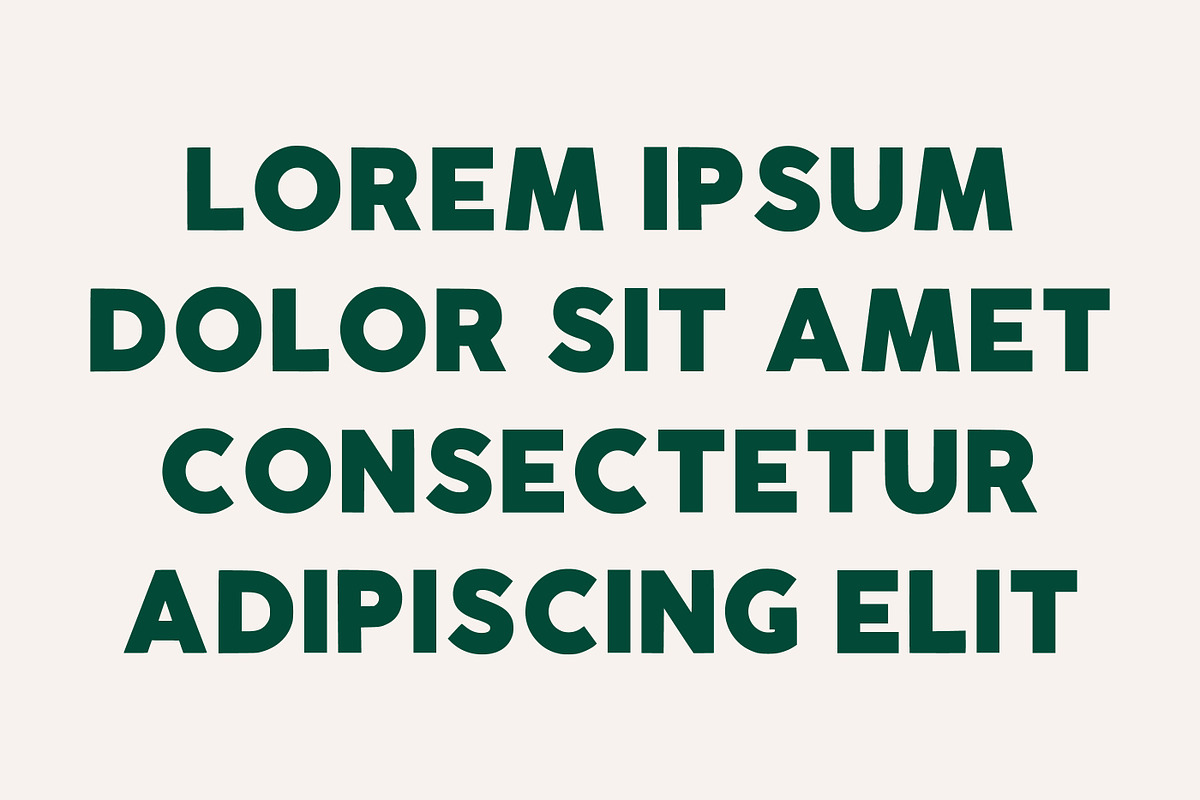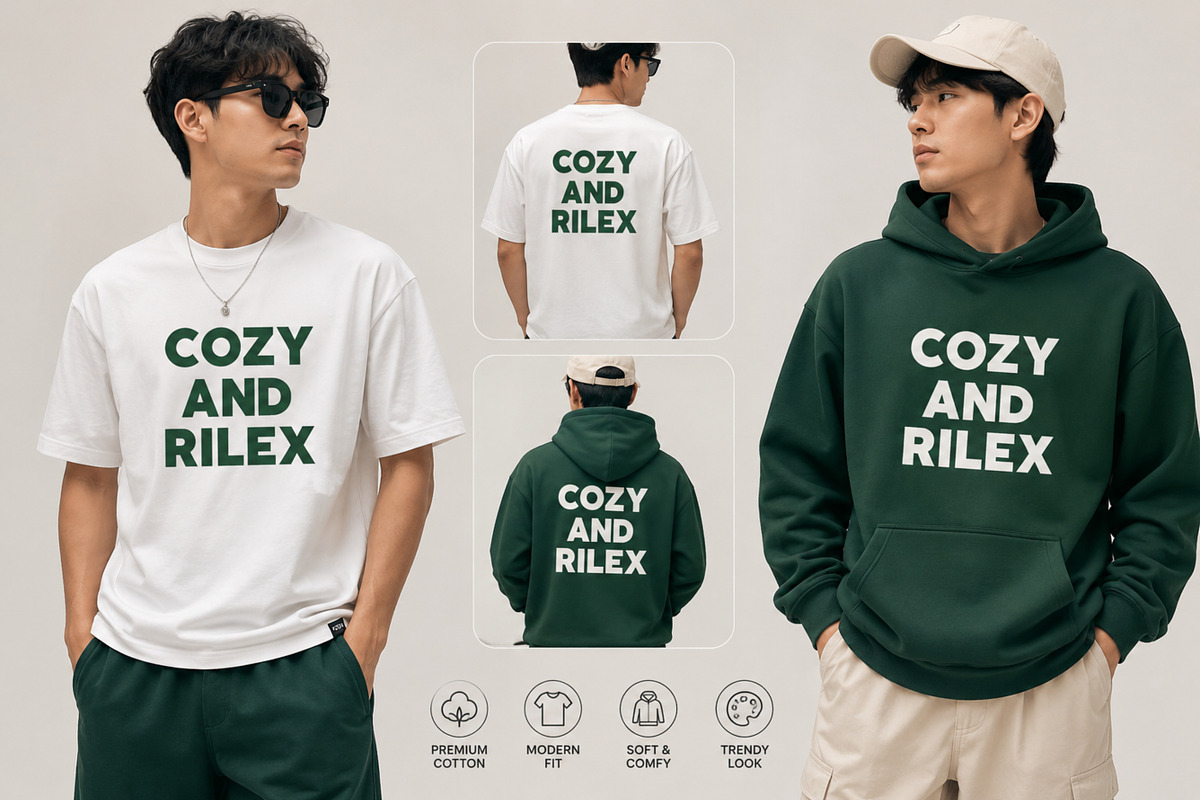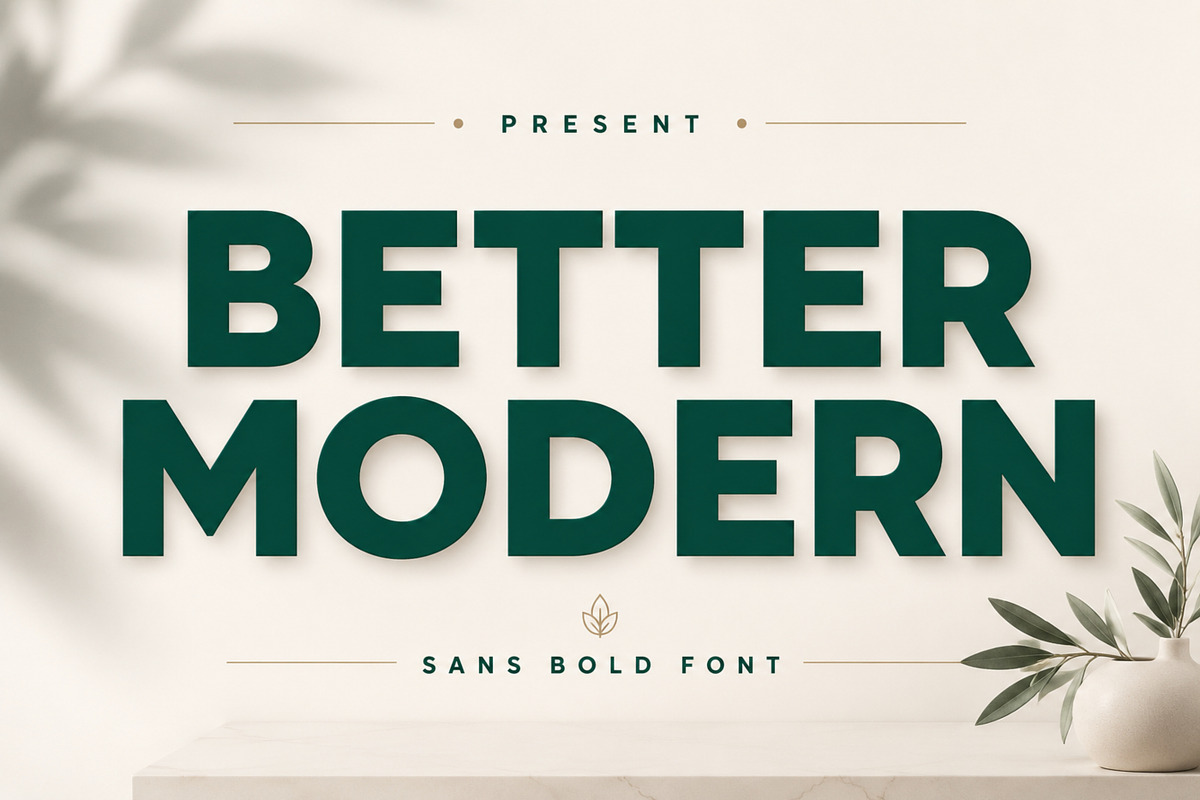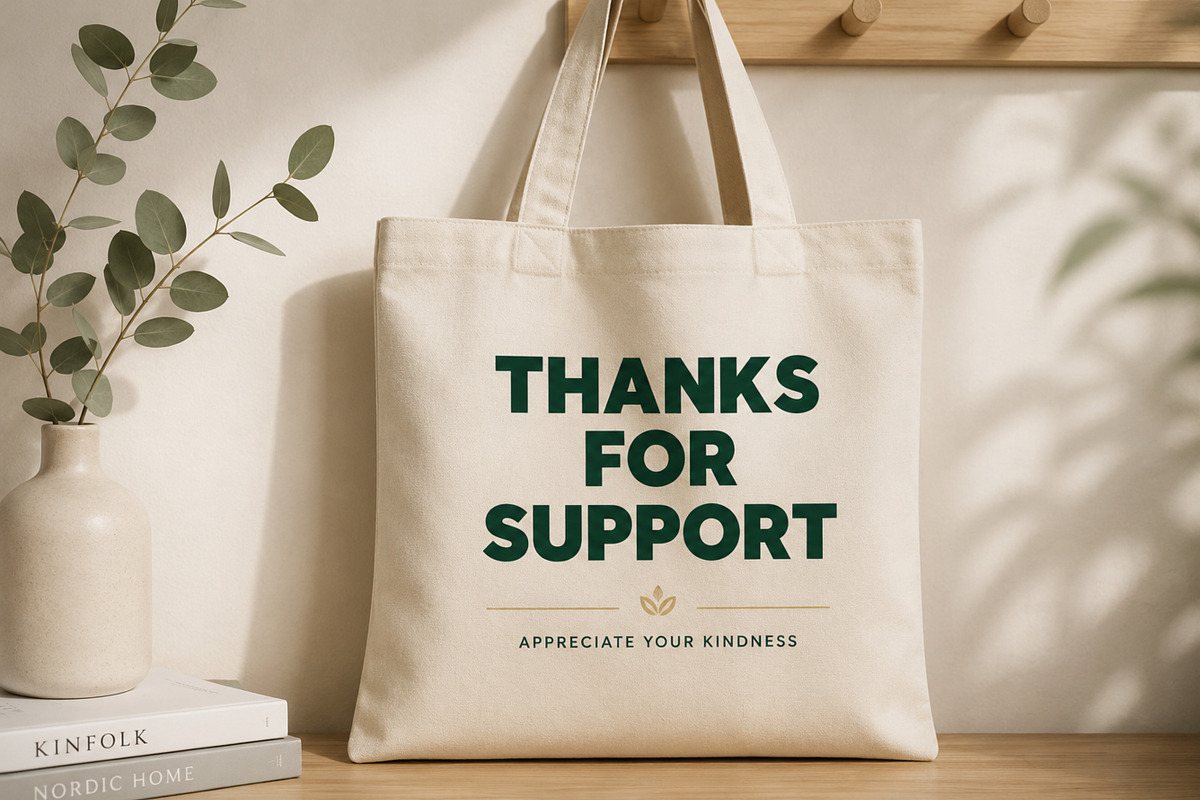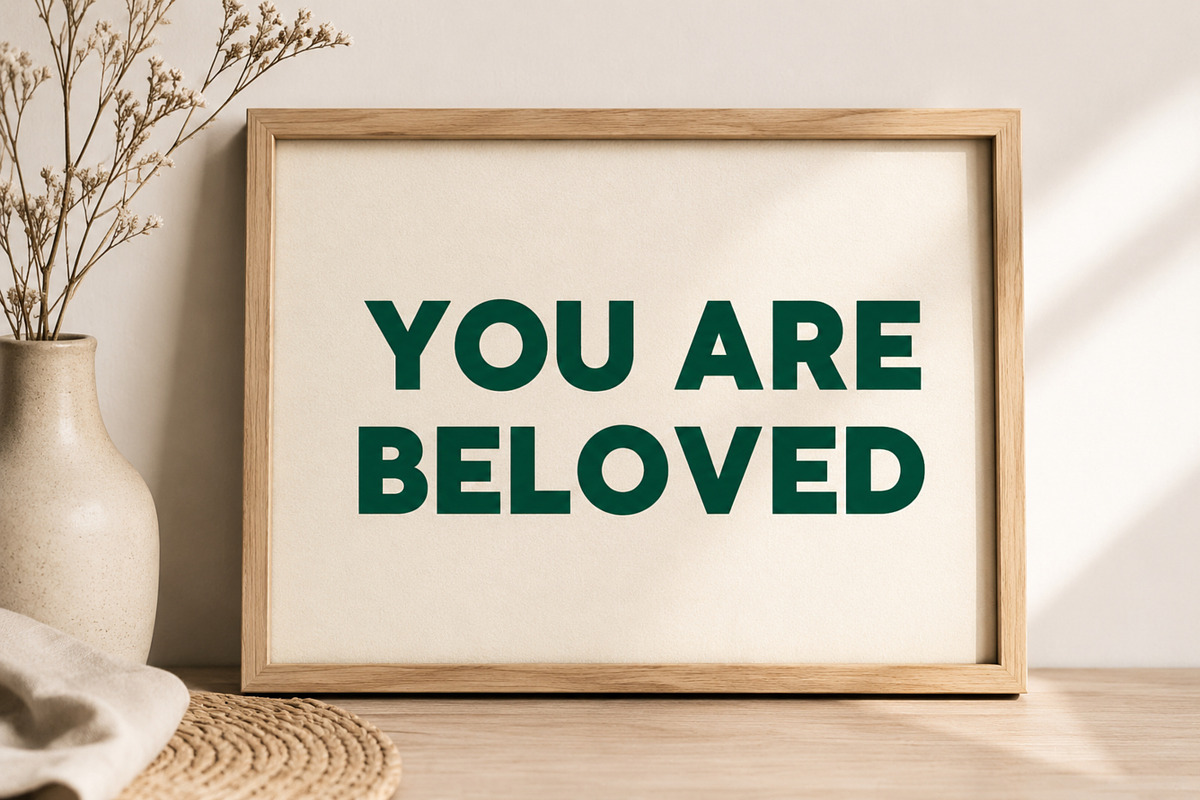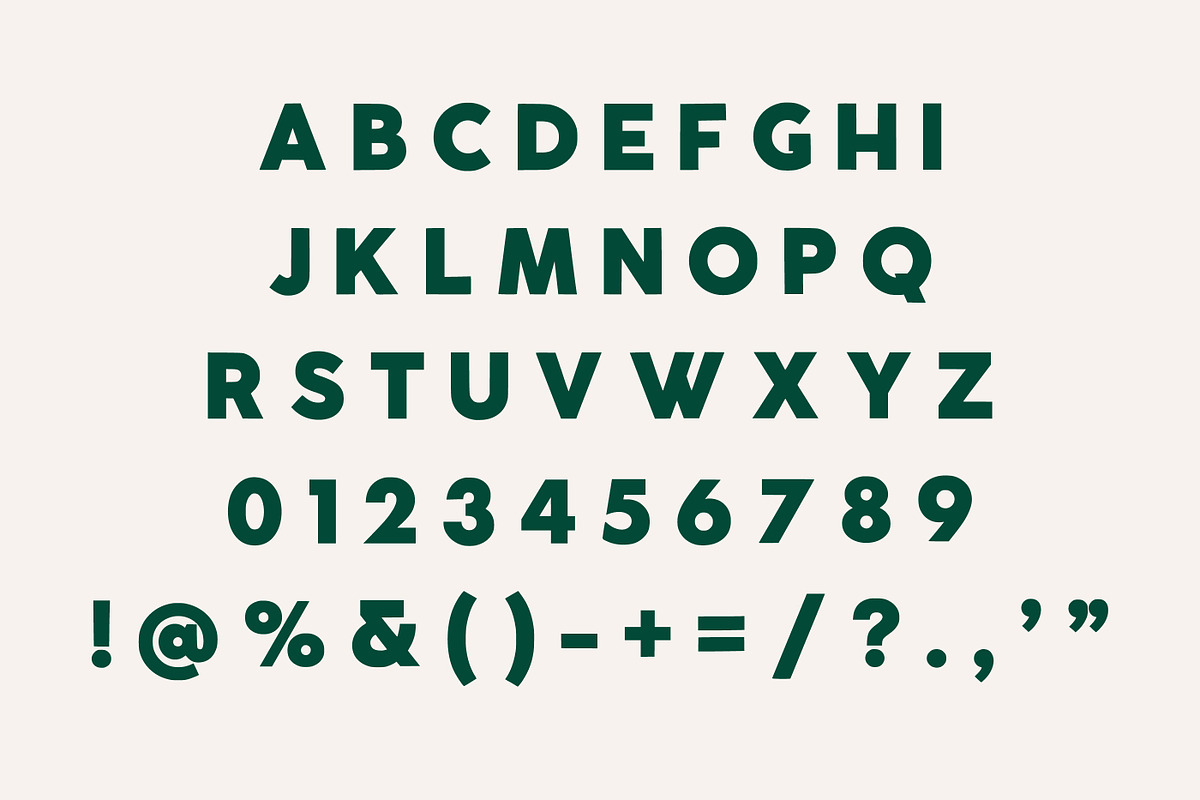
Better Modern – Bold Sans Serif
Better Modern is a bold, clean, and contemporary sans serif display font designed to make a strong visual statement. Its simple geometric shapes and solid letterforms create a modern, professional, and confident appearance.
With its minimalist character and excellent readability, Better Modern works beautifully across both digital and print projects. It is a versatile choice for brands looking for a clean, premium, modern, and sophisticated typographic style.
Bold modern sans serif style
Clean geometric letterforms
Strong and professional appearance
Excellent readability
Perfect for large headlines and display typography
Uppercase characters
Logo & brand identity
Modern business branding
Minimalist posters
Fashion branding
Magazine & editorial design
Website headlines
Packaging design
Product labels
Advertising
T-shirt designs
Signage
YouTube thumbnails
Corporate designs